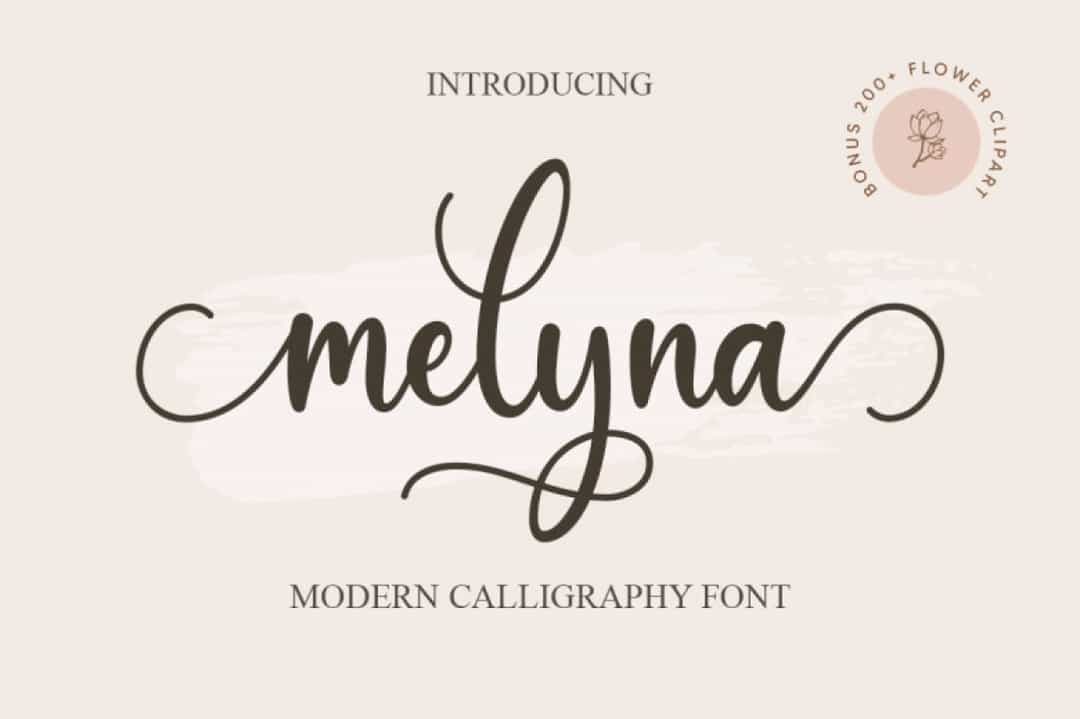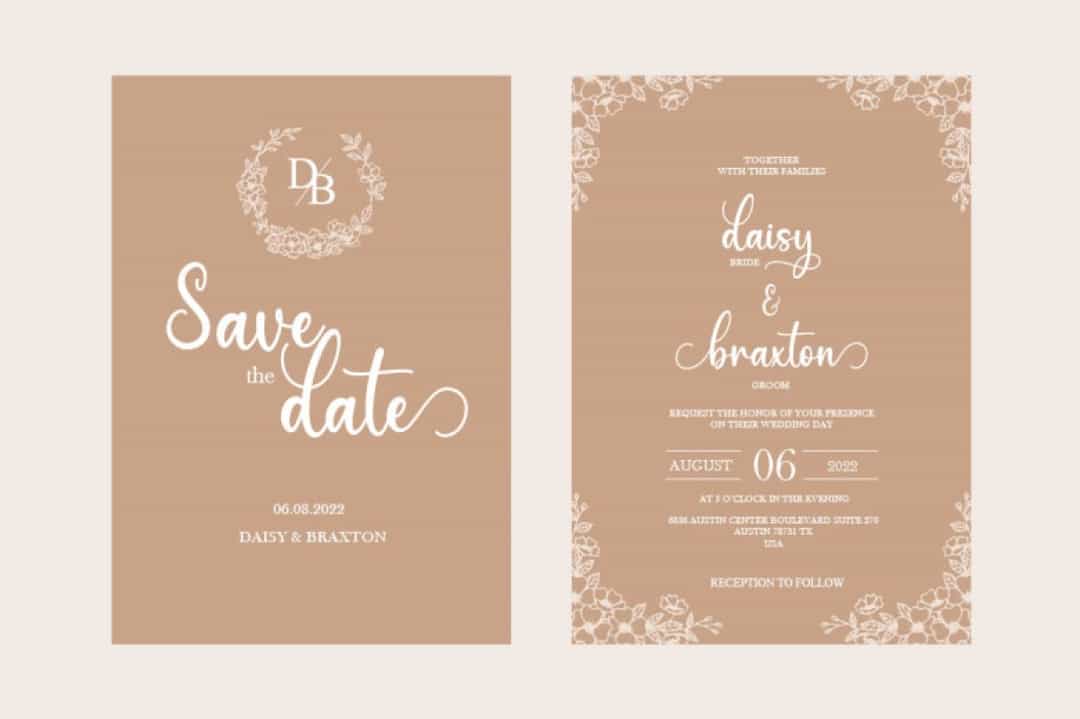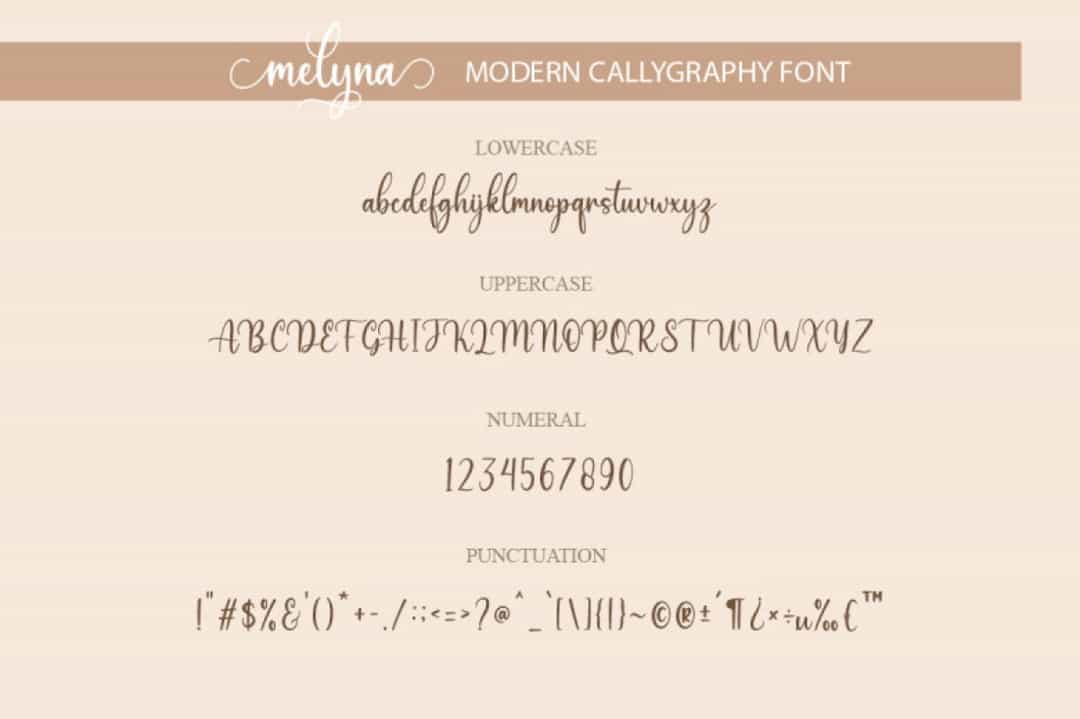
Discover Melyna Font, part of the Calligraphy collection—a versatile and unique font perfect for adding a personal touch to your projects. Download it for free and enjoy crafting designs with style, from invitations to social media posts. This font is available exclusively for personal use, giving you the freedom to create without limits. Unlock your creativity with Melyna Font today!
Melyna is an exceptional script calligraphy font designed by a master and has quickly become an industry favorite. Melyna boasts elegant calligraphic motifs while remaining contemporary-looking. PUA encoded, you’ll gain access to all characters and symbols easily!